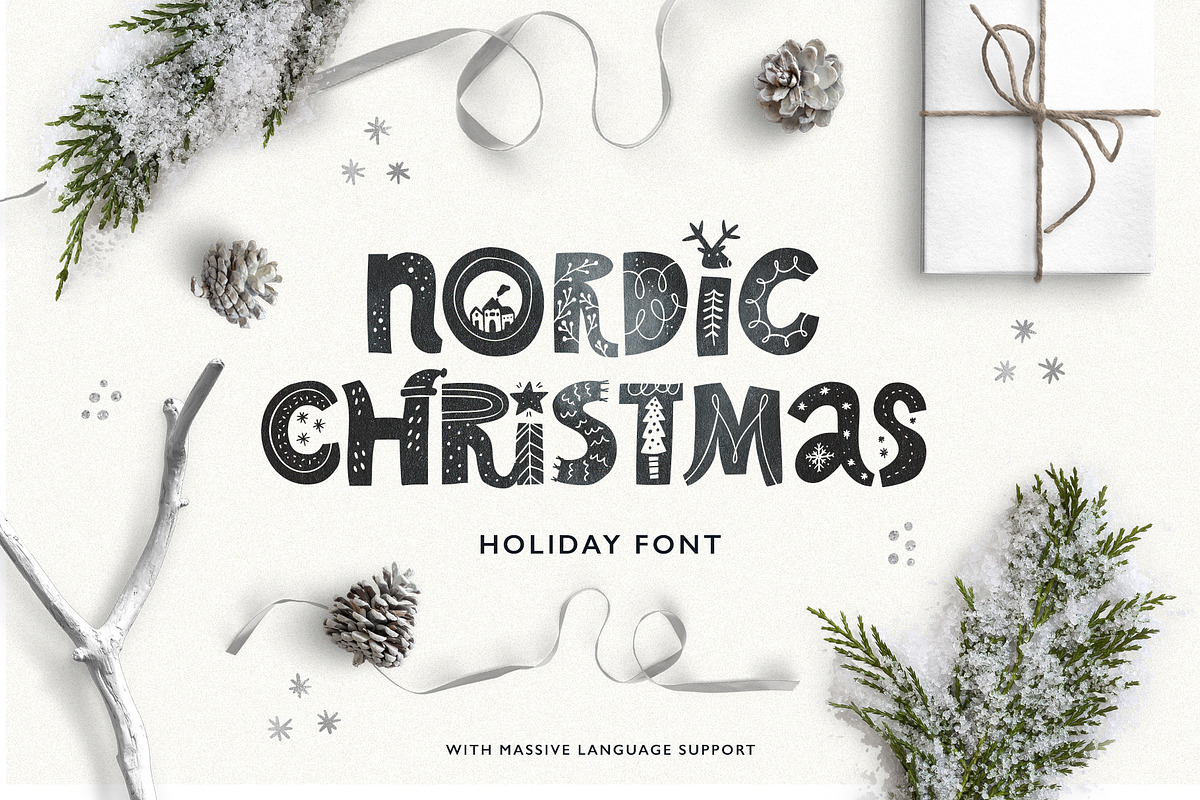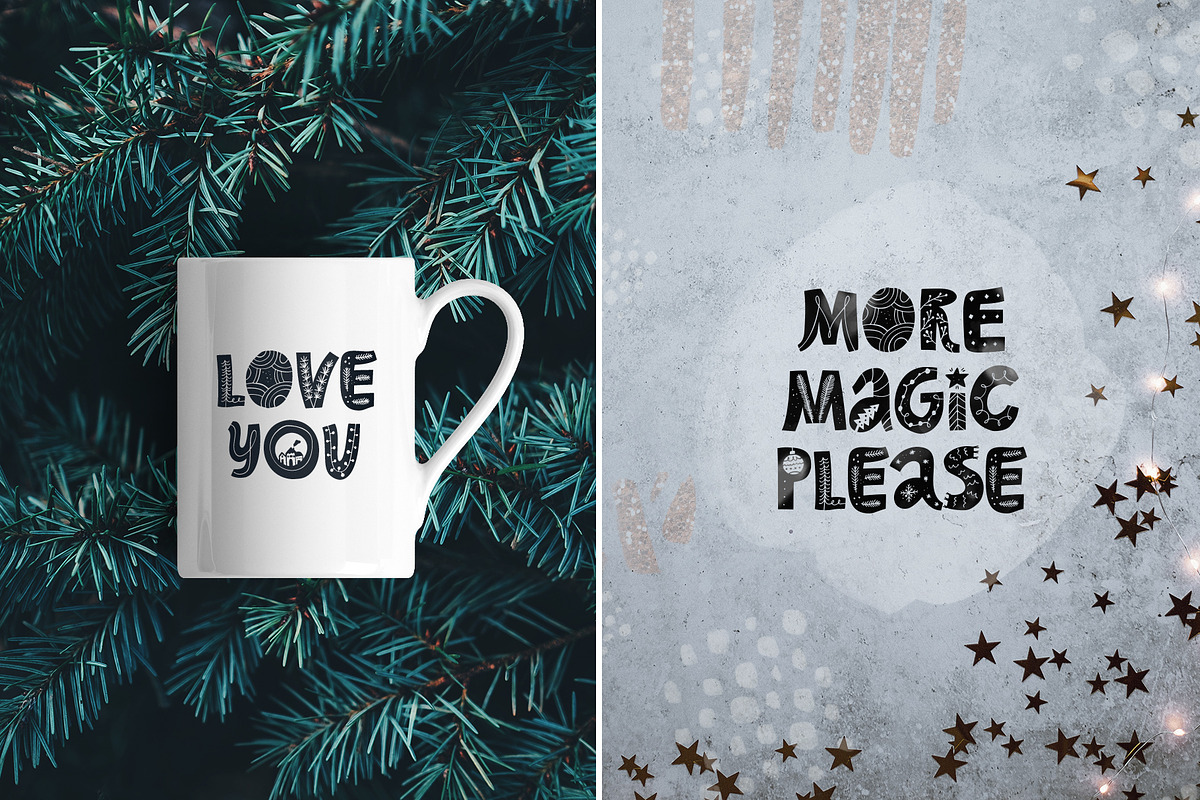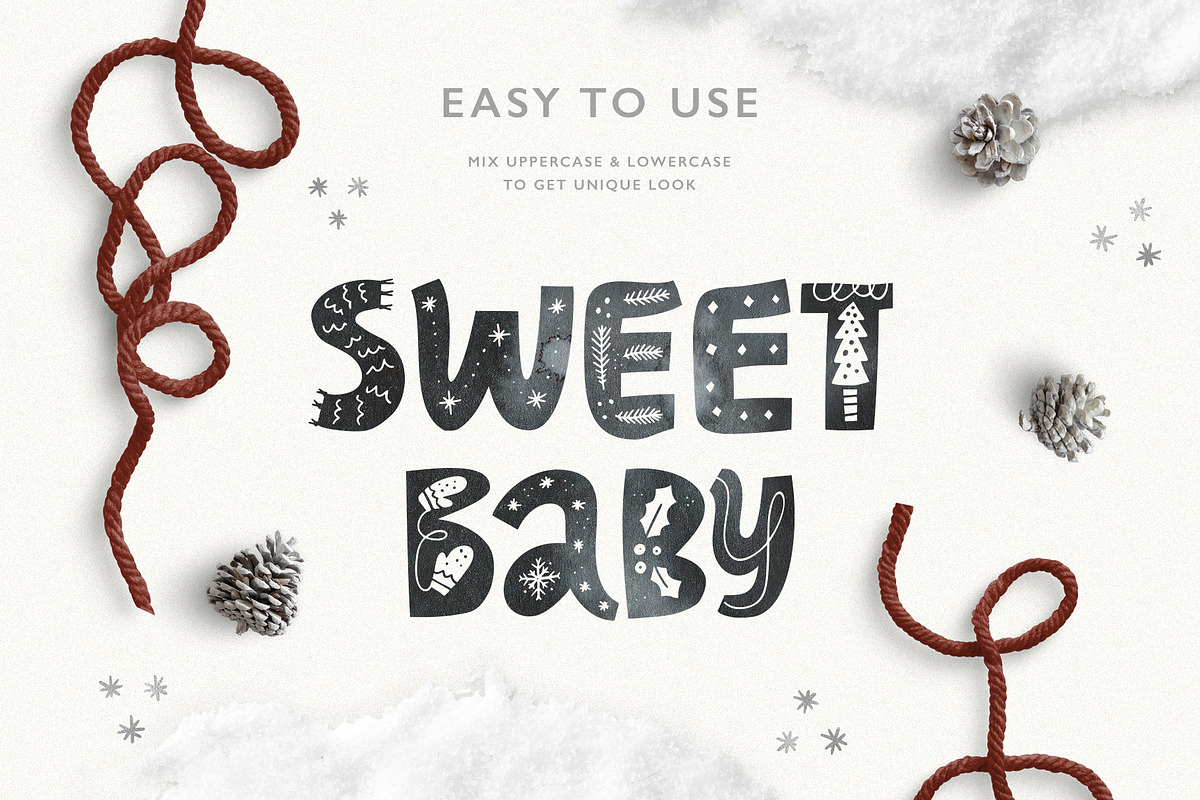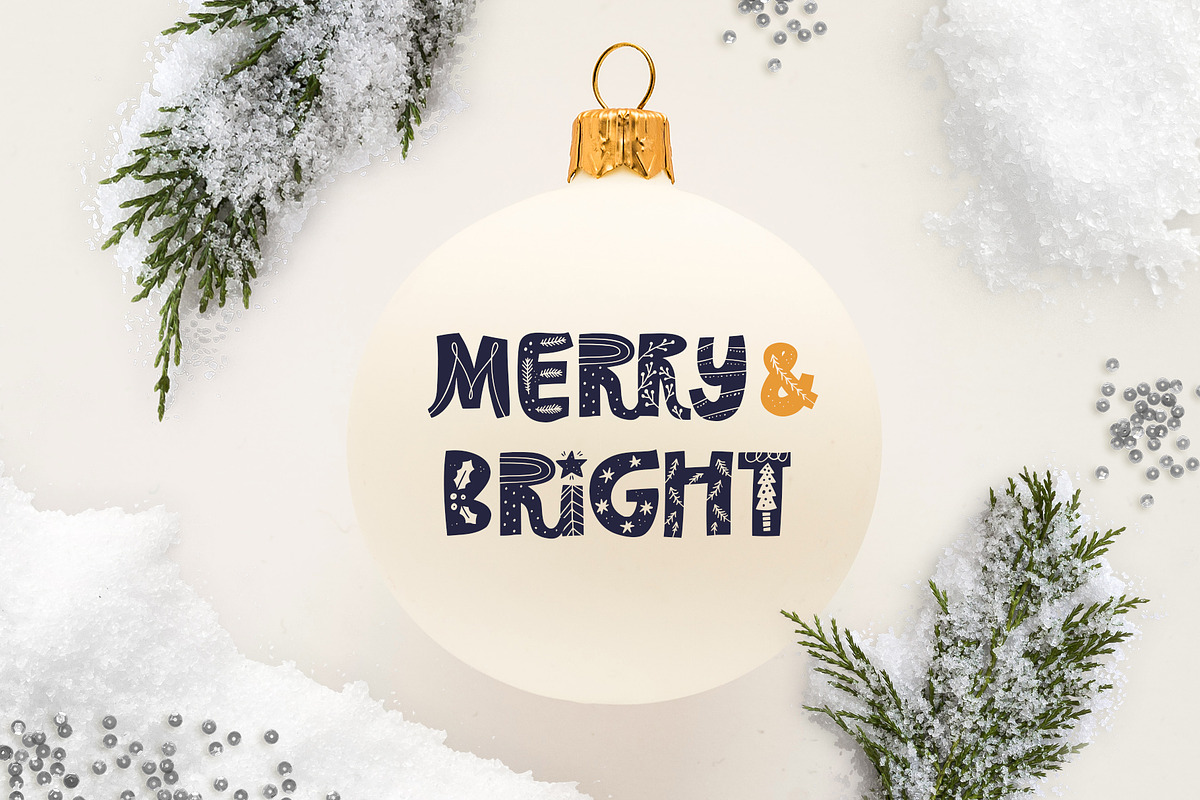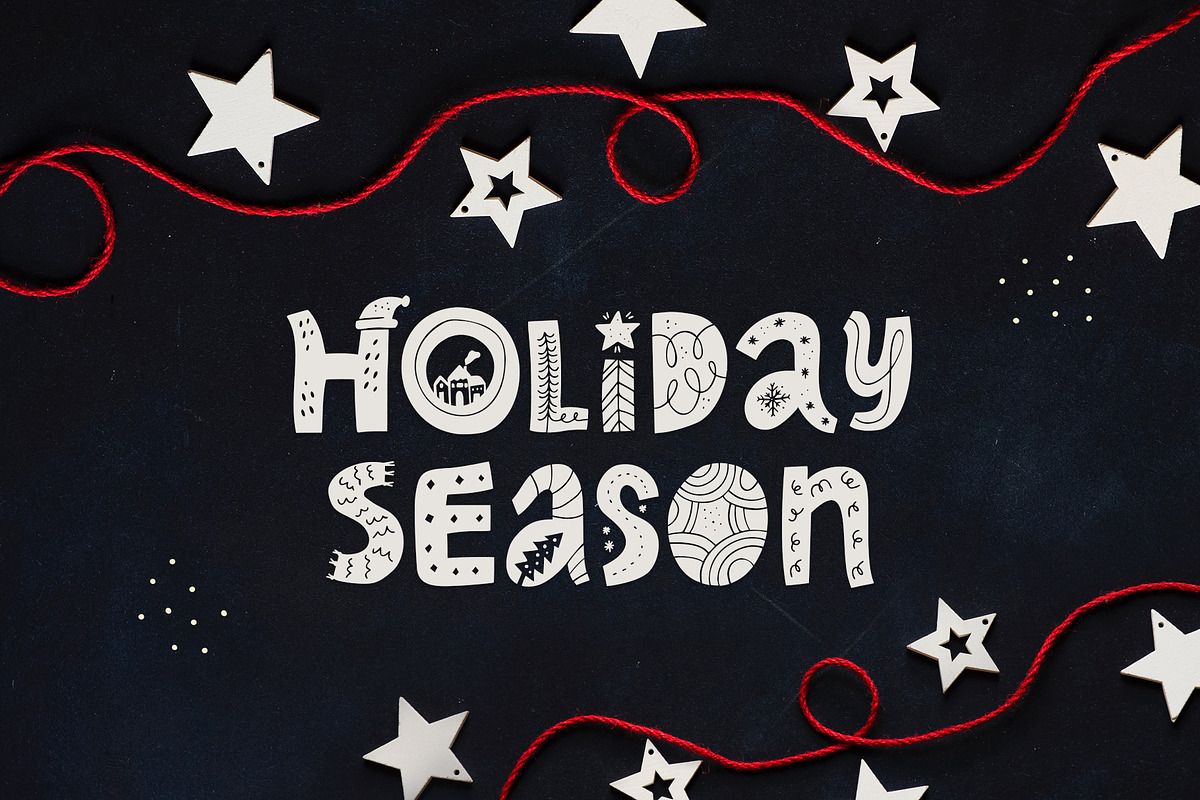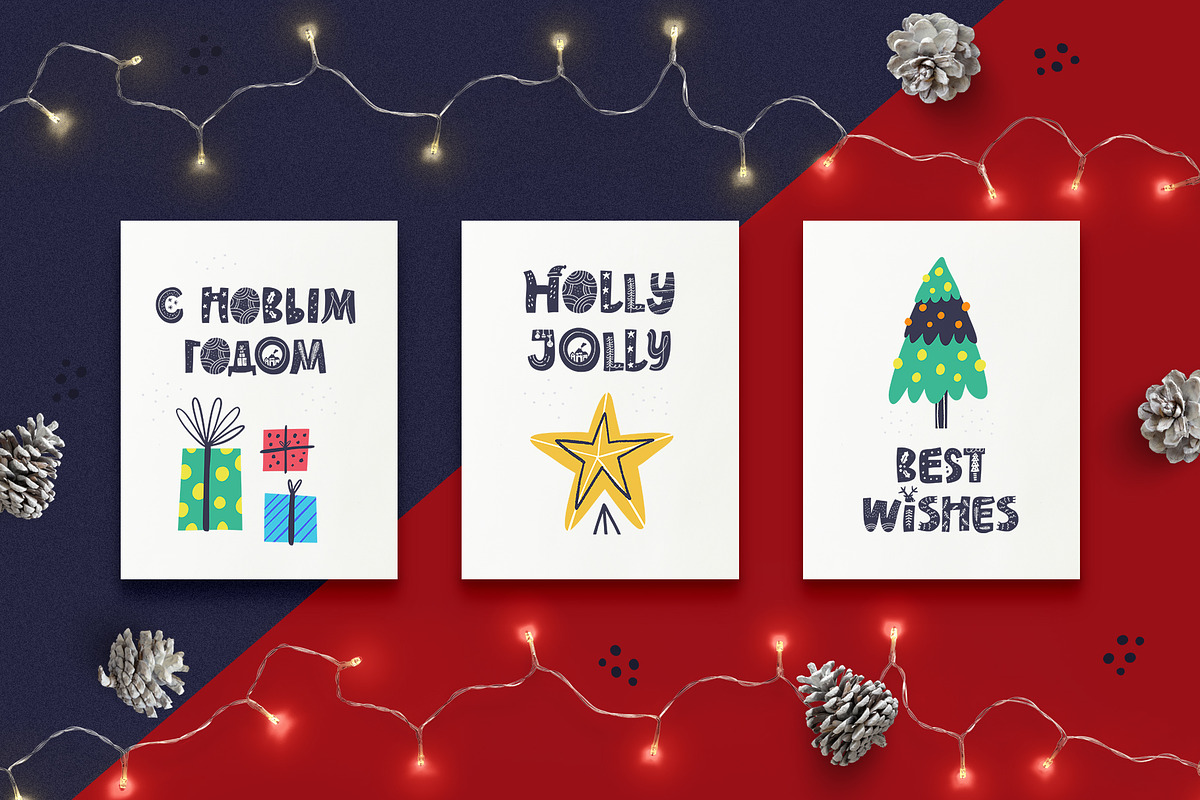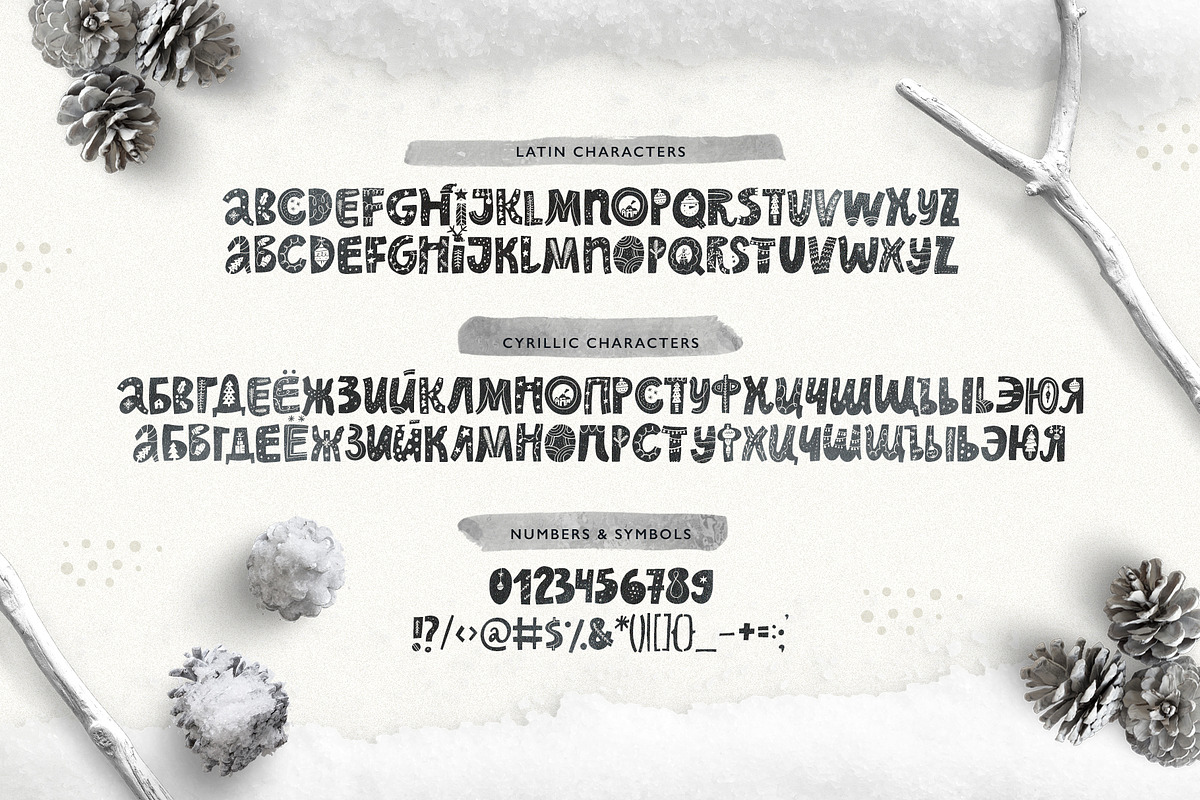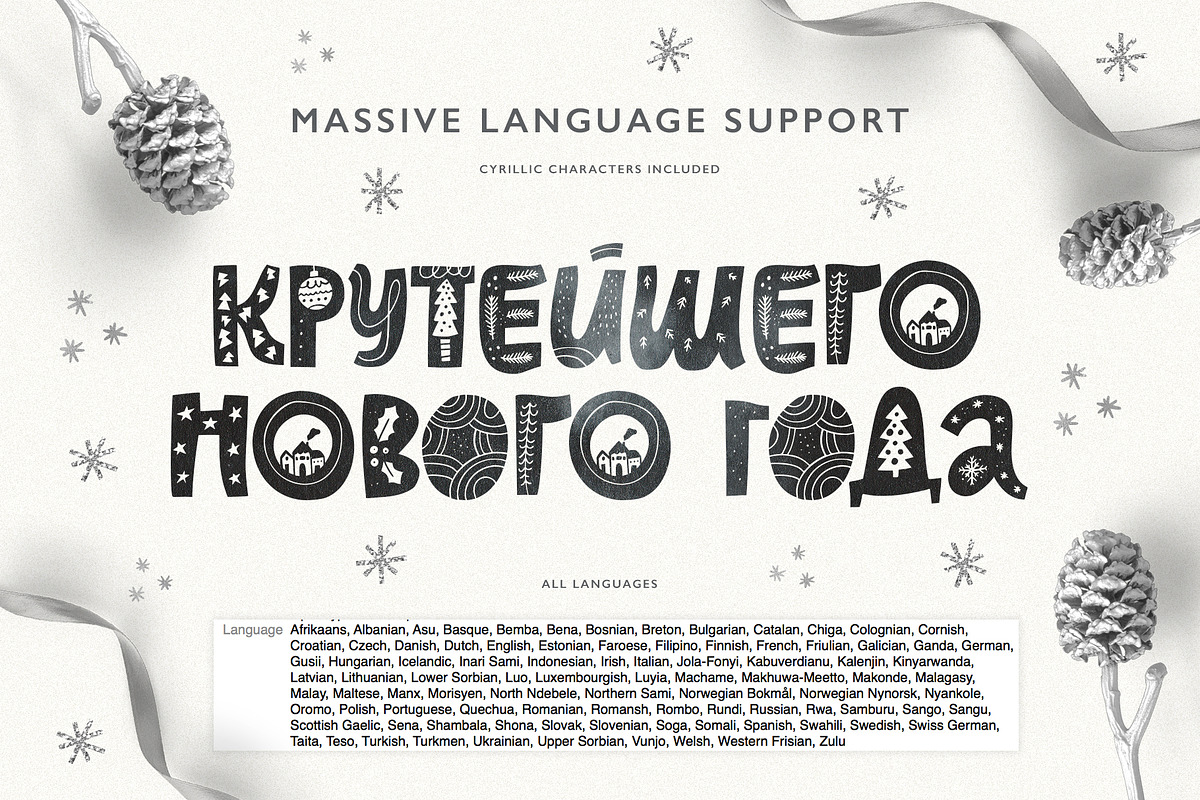
Nordic Christmas - scandinavian font
Nordic Christmas is stylish display font with bold look and holiday feel. It comes with two sets of alternatives that you can mix&match just by typing either in lowercase or in uppercase register. It's super easy to use, no special software required.
Nordic Christmas is inspired by nature, winter and scandinavian motives and it will be perfect for posters and greeting cards.
Nordic Christmas has massive language support - it includes basic latin characters, western european, central european, south eastern european, as well as basic and bulgarian cyrillic characters. Just type in the box above & check compatibility with your language :)
Character set A-Z in 2 variations
Cyrillic set А-Я (+ bulgarian cyrillic) in 2 variations
Language support - full list if languages can be found in the preview